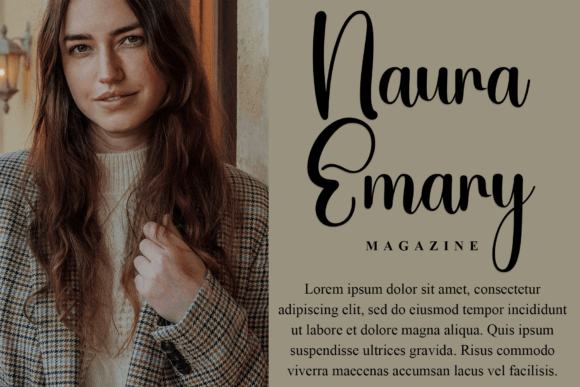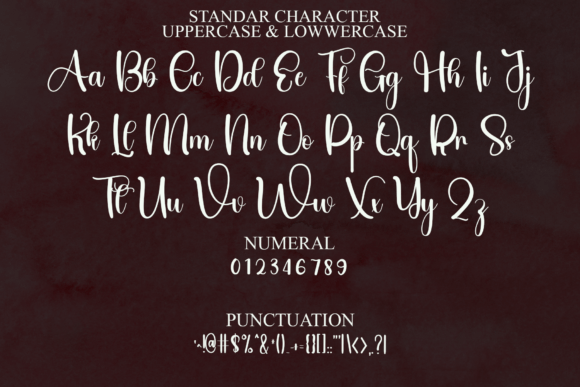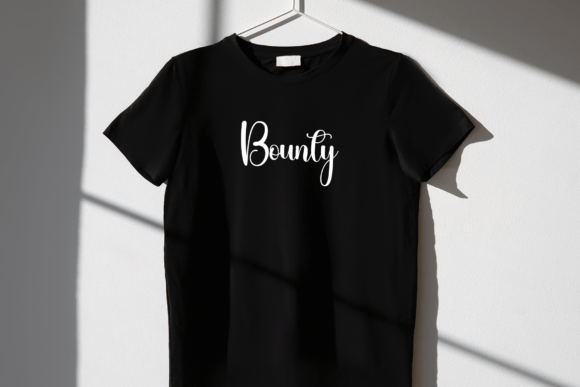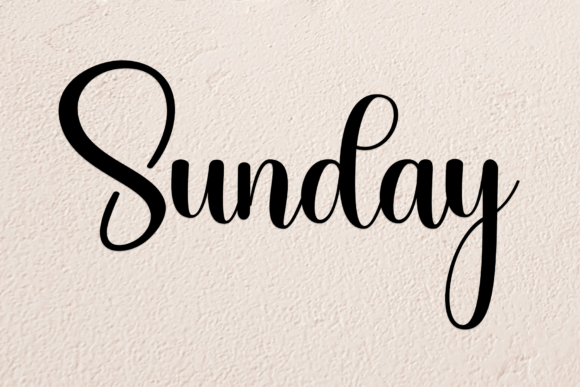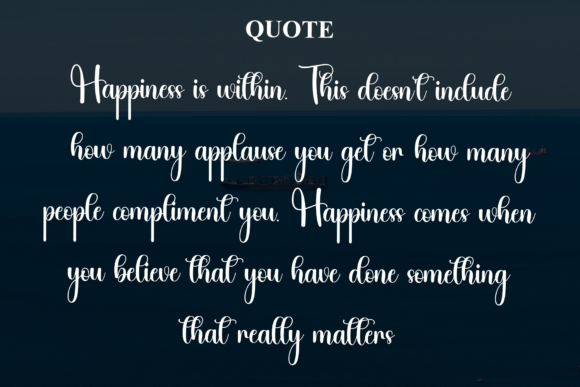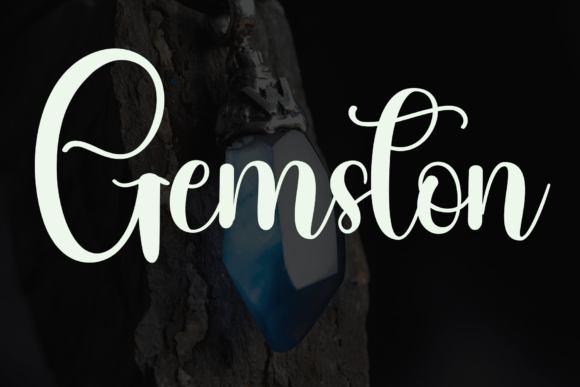
Introduction to Brilliant Maylena Font
Have you ever been working on a creative project, pouring your heart and soul into it, only to realize that the perfect font is missing? That’s exactly what happened to me when I stumbled upon the Brilliant Maylena Font. Its elegant and refined look instantly caught my attention, and I knew I had to share it with the design community.
As designers, we’re always on the lookout for high-quality fonts that can elevate our designs and make them stand out. And that’s exactly what the Brilliant Maylena Font offers. With its transparent background and beautiful handwritten style, it’s a design resource that’s sure to impress. Whether you’re working on a logo, invitation, or social media post, this font is sure to bring a touch of class and sophistication to your design.
What sets the Brilliant Maylena Font apart is its PUA encoding, which makes it easy to access all the amazing glyphs and ligatures. This means you can experiment with different combinations and create unique designs that reflect your personal style. And the best part? It’s available for free download, making it an invaluable resource for designers of all levels.
Key Features of Brilliant Maylena Font
- High-quality font design with a transparent background, ideal for creative projects and design resources.
- Designed with a modern and elegant aesthetic, making it suitable for a variety of creative projects.
Honest Review: Brilliant Maylena Font
I recently came across the Brilliant Maylena Font, and I must say it’s a high quality addition to any creative project. As a designer, I’m always on the lookout for unique fonts that can elevate my designs and make them stand out.
What works well with this font is its versatility. It’s perfect for creating a sophisticated and elegant look, but also has a playful touch that makes it suitable for a variety of creative projects. The transparent background option is also a plus, allowing designers to easily customize and integrate it into their designs.
- High quality and detailed design
- Transparent background option for easy customization
- Perfect for creative projects requiring a sophisticated or playful look
However, ⚠️ there are some limitations to consider. The font may not be suitable for projects requiring a bold or dramatic font style, and the transparent background option may not work well with all design elements.
Overall, I’m impressed with the Brilliant Maylena Font. It’s a valuable design resource that can add a touch of elegance and sophistication to any project. With its high quality design and versatility, I highly recommend it to designers looking for a unique and creative font.
Tips for Getting the Most Out of Brilliant Maylena Font
Brilliant Maylena Font is ideal for use in logos, branding materials, and marketing materials. Its high quality and transparent background make it perfect for use in creative projects where a professional look is desired.